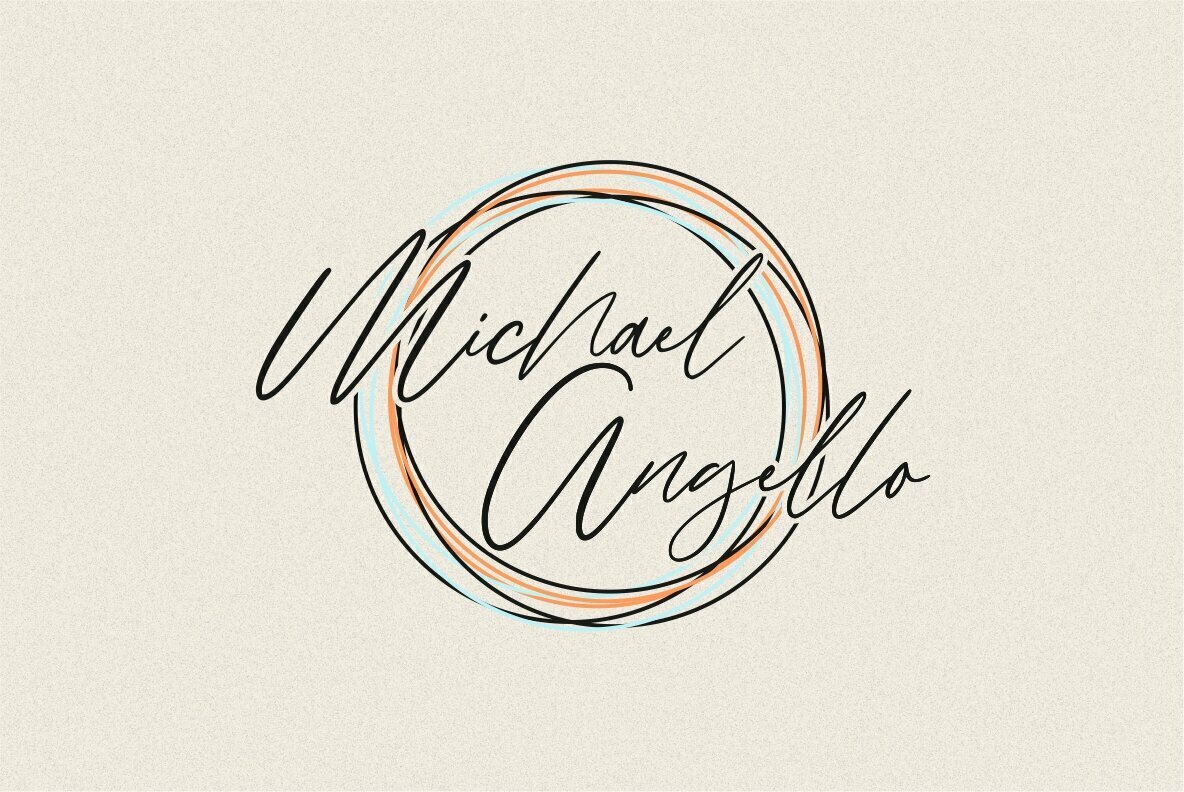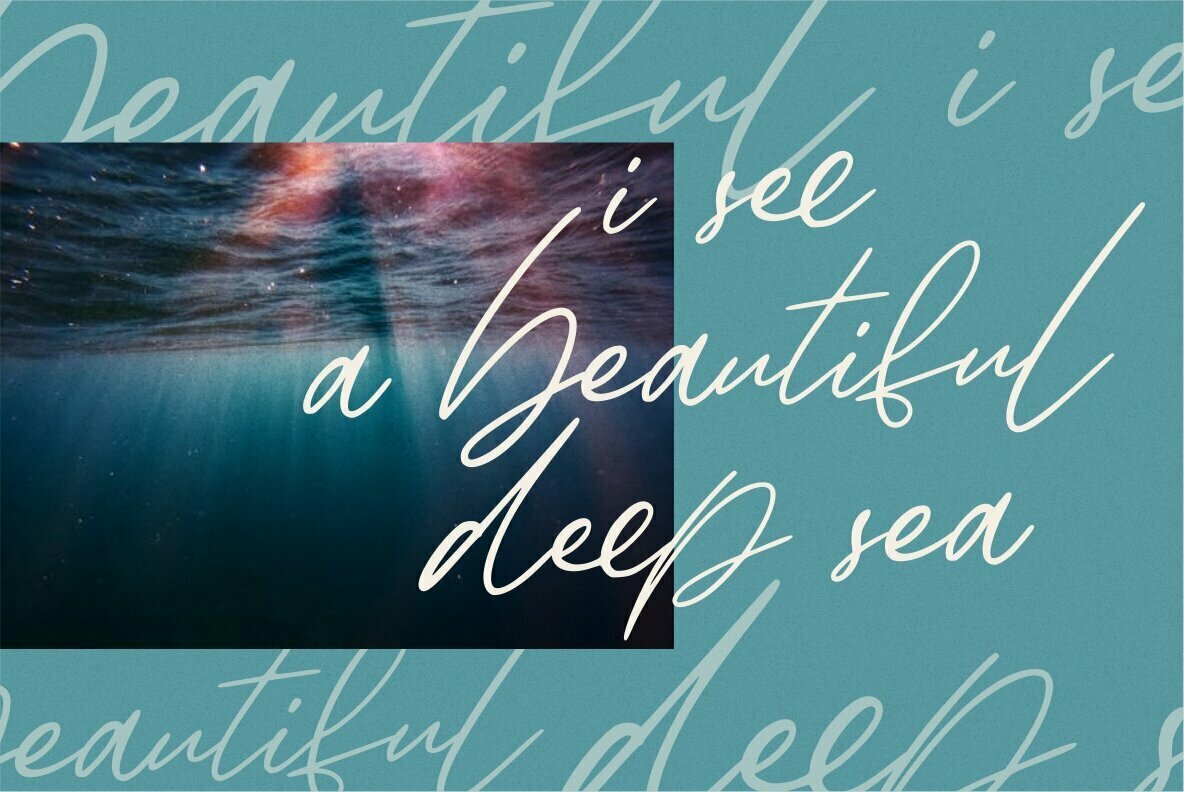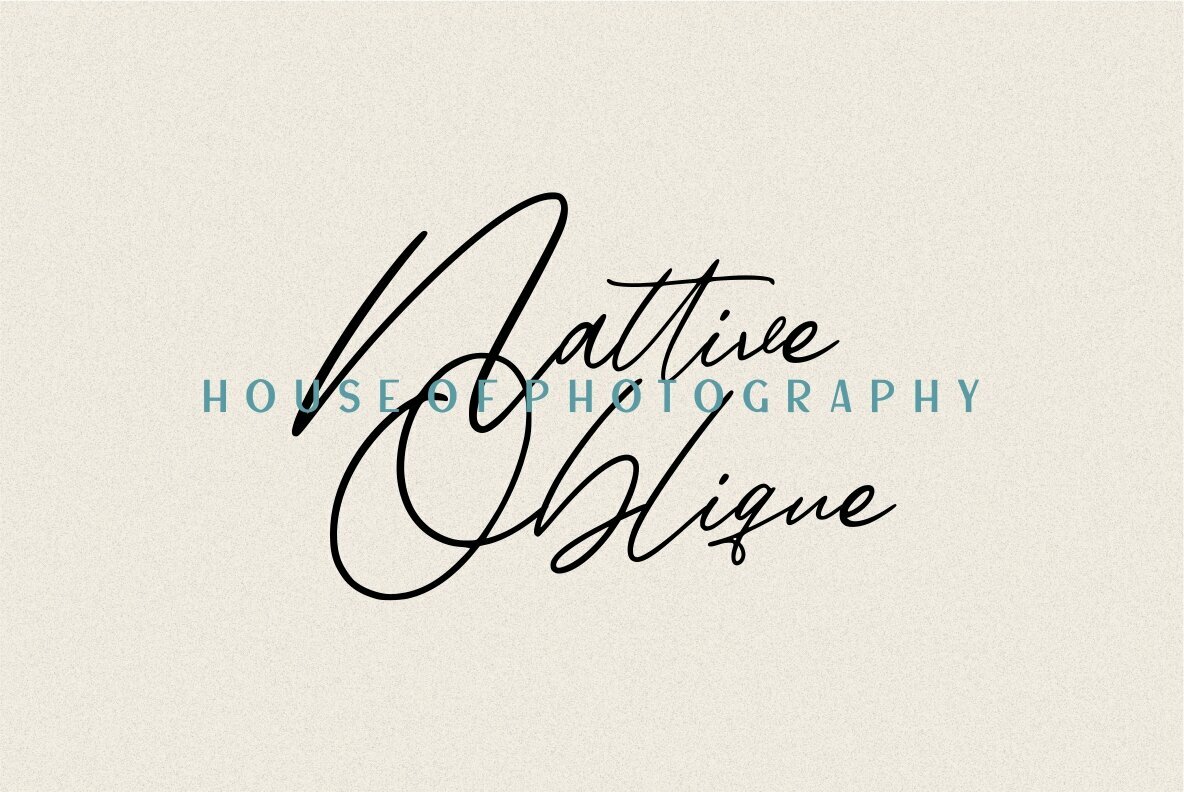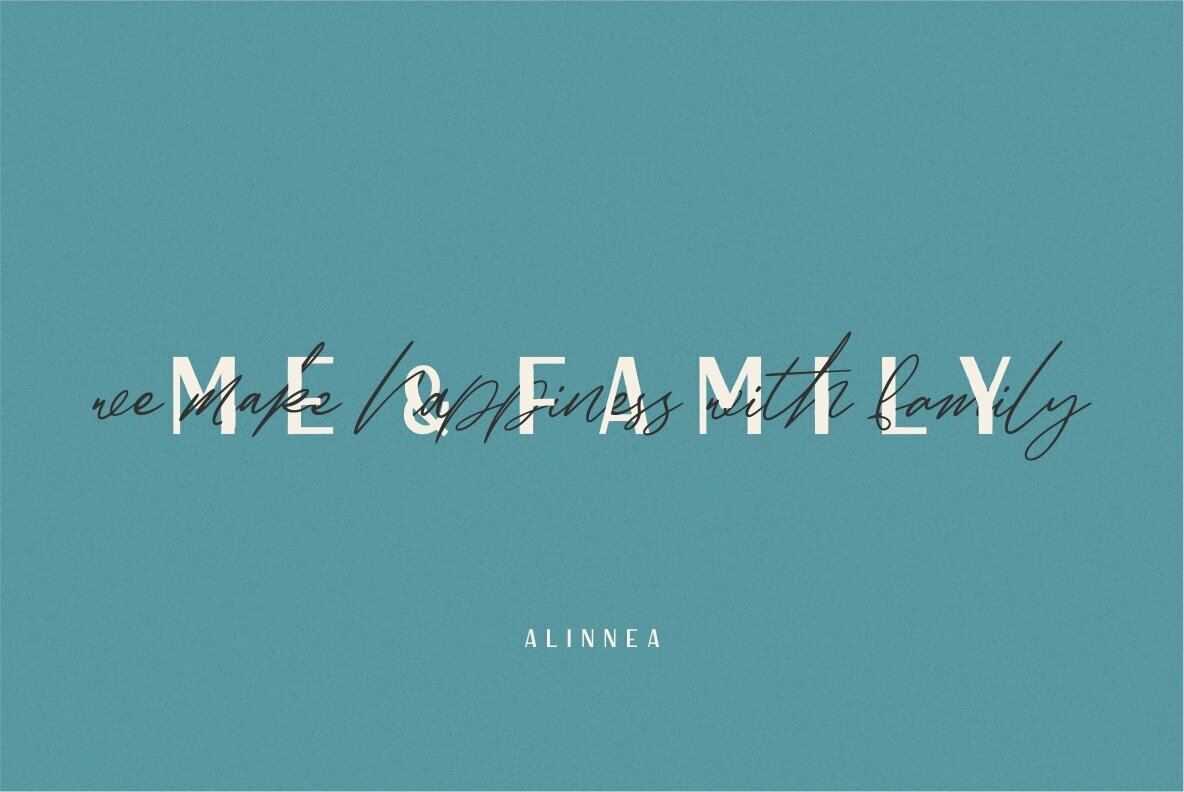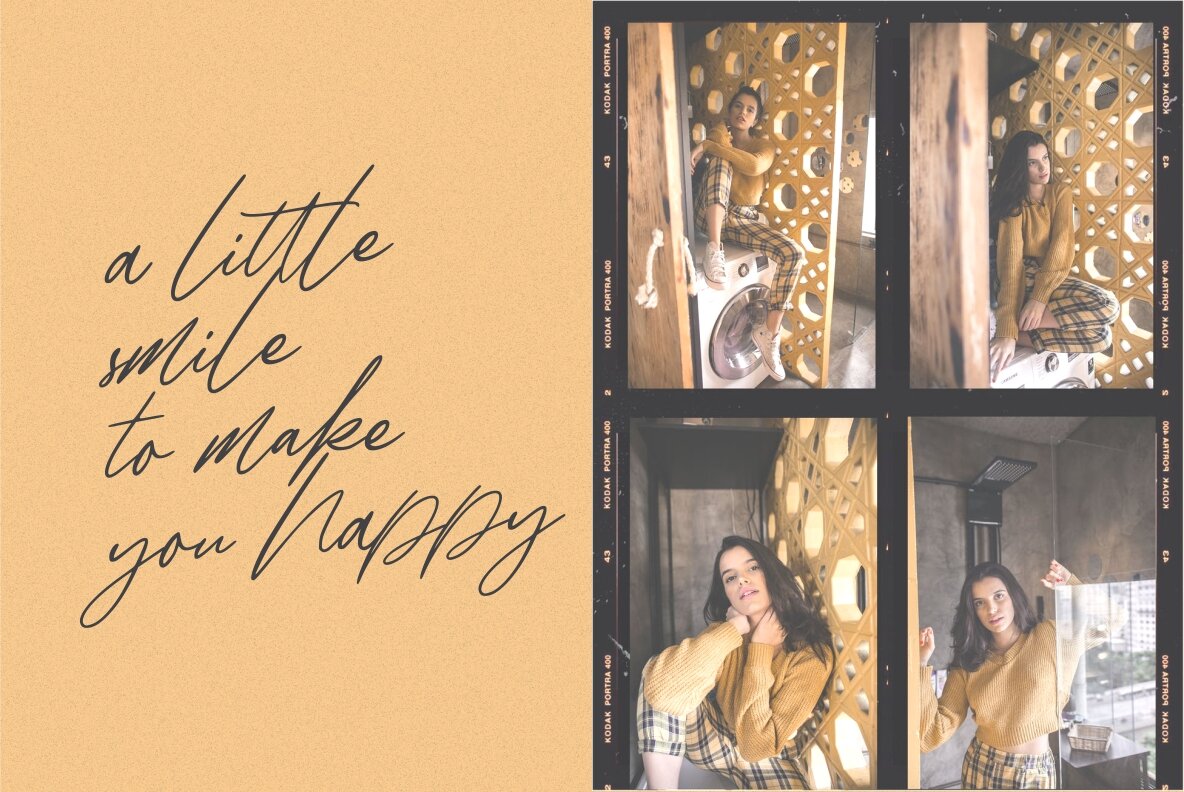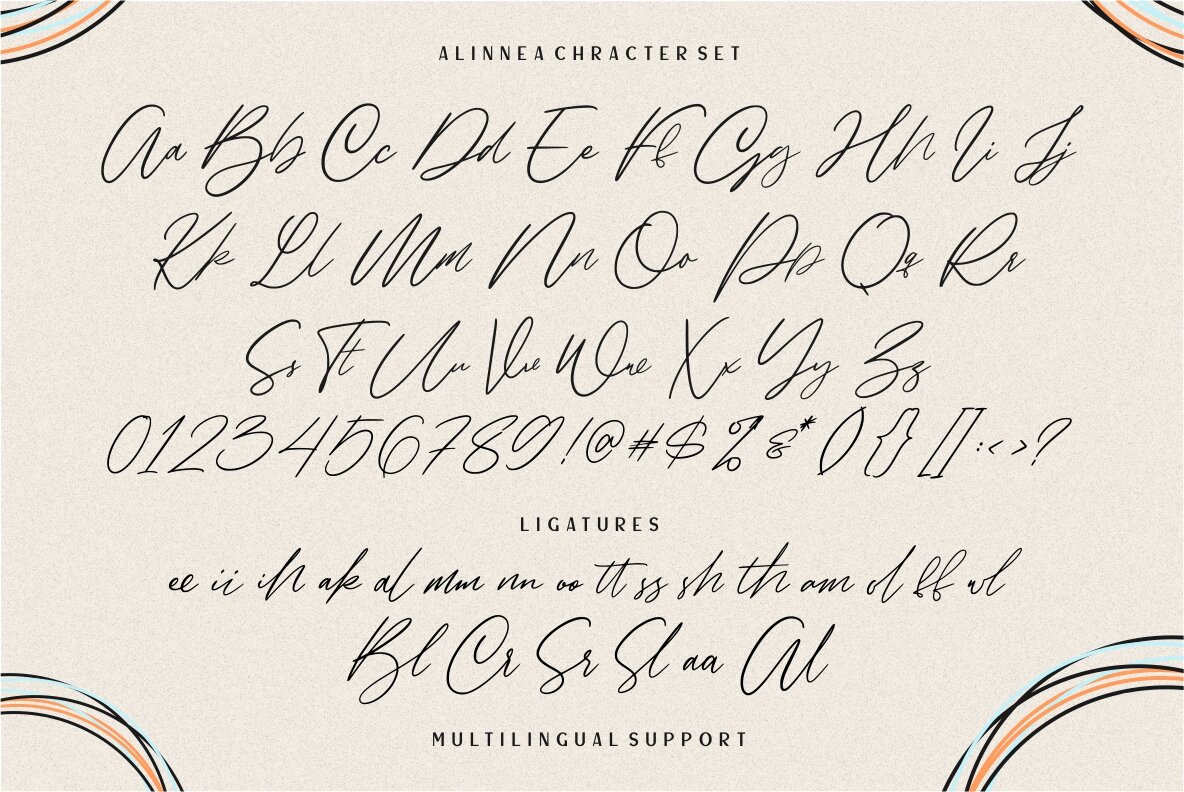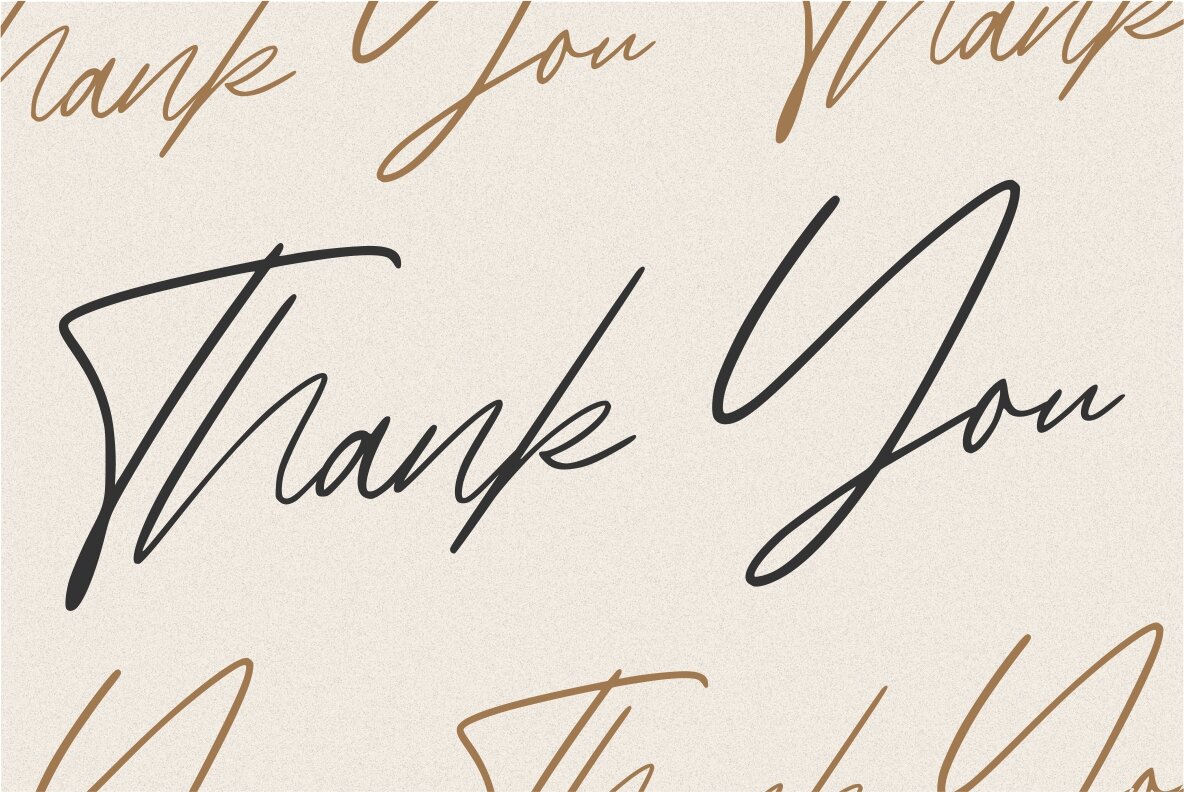
Alinnea Font
Alinnea
Alinnea brings the sophistication of a natural signature font, embodying fluid elegance for a variety of applications. Today’s designers seeking aesthetic finesse will find it ideal for projects that range from logos and invitations to wedding designs and social media posts. Its hand-drawn style lends an authentic touch to advertisements, product packaging, and beyond, making it equally suited for photography and watermarking special events.Alinnea: Expressive Signature Font for Versatile Design